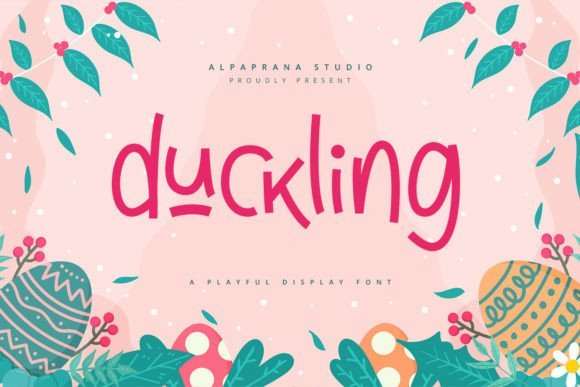
The Perfect Quack for Your Design: Introducing Duckling Font
Who hasn’t experienced that magical moment when inspiration strikes, and creativity flows like a river? It’s a feeling that designers know all too well, and for some, it’s the starting point of a new project. For us, it was the birth of Duckling Font – a playful display font that’s sure to bring a smile to your face and a touch of whimsy to your designs.
As a designer, you’re always on the lookout for that special something that sets your work apart. Duckling Font is here to quack its way into your heart (and your designs!). With its fun and playful feel, it’s the perfect addition to branding, logo design, lettering, and more. Whether you’re working on a project for a children’s clothing line or a quirky coffee shop, Duckling Font is the perfect partner in crime.
- Unique Characteristics: The Duckling Font features a playful, hand-drawn design with intricate details, making it ideal for children’s books, educational materials, and creative projects.
- Font Family: The font family includes a range of styles, from casual to formal, allowing users to choose the perfect fit for their design needs.
- Font Pairing: The font’s unique design makes it an excellent choice for pairing with other fonts, adding a touch of whimsy and personality to any design project.
Duckling Font Review
Overall, I’m quite fond of the Duckling Font. Here’s what I think:
- The font is highly customizable, with a wide range of size and color options available.
- The playful, childlike feel of the font makes it perfect for designs that require a whimsical touch.
- The font is well-suited for use in digital and print media, with clear and crisp typography.
- The font’s irregularities and quirks add a unique charm to the design.
- The font may not be suitable for use in formal or professional settings, where a more traditional or conservative font is preferred.
- The font’s irregularities and quirks can sometimes be distracting or difficult to read, particularly in large blocks of text.
Overall, I think the Duckling Font is a great choice for designers who want to add a playful touch to their designs. While it may not be suitable for all projects, it’s a versatile and customizable font that can add a unique charm to a variety of designs.
For best results, use Duckling Font in conjunction with playful and whimsical graphics.
Experiment with different font sizes and styles to add visual interest.
Consider pairing Duckling Font with a bold or italic font for contrast.
Duckling Font is ideal for:
Children’s party invitations and decorations
Whimsical greeting cards and stationery
Playful logos and branding
Fun and creative social media posts